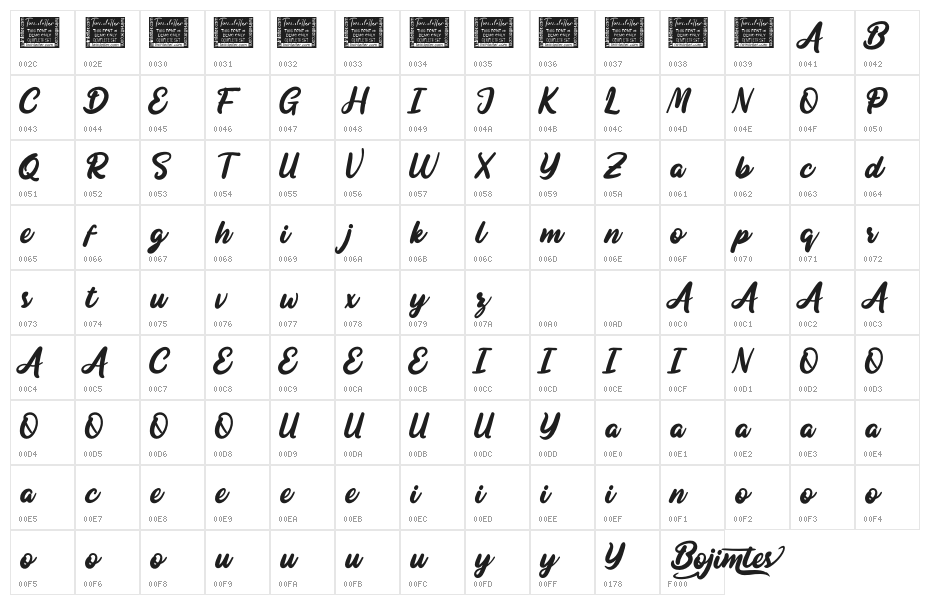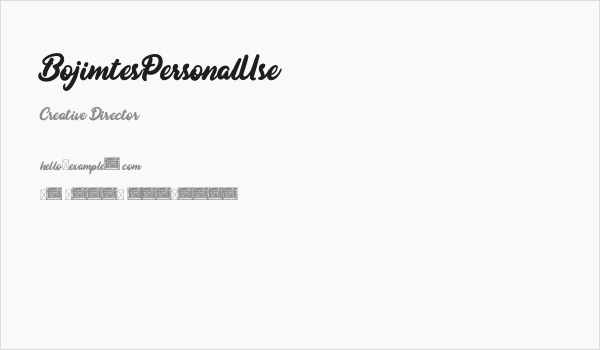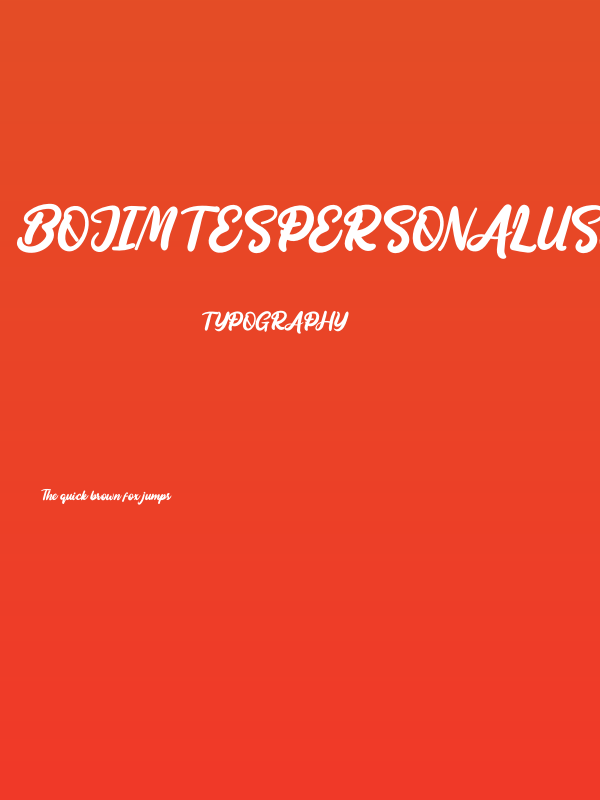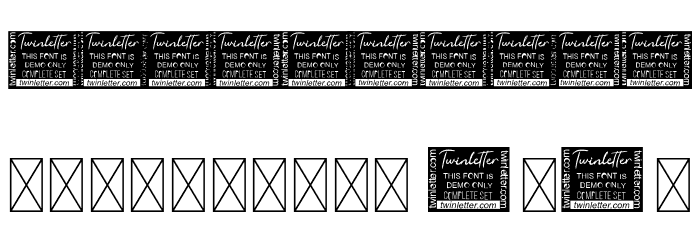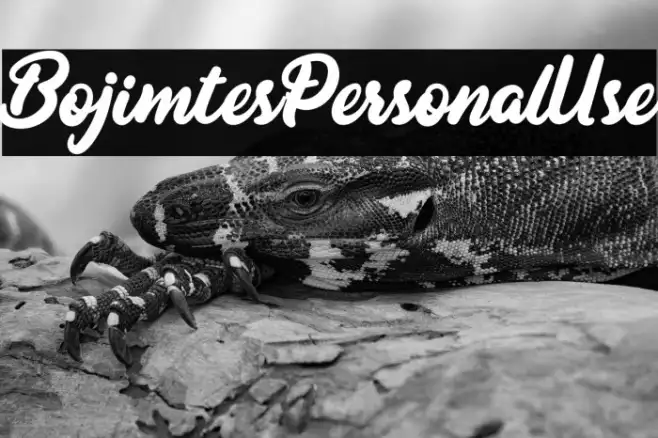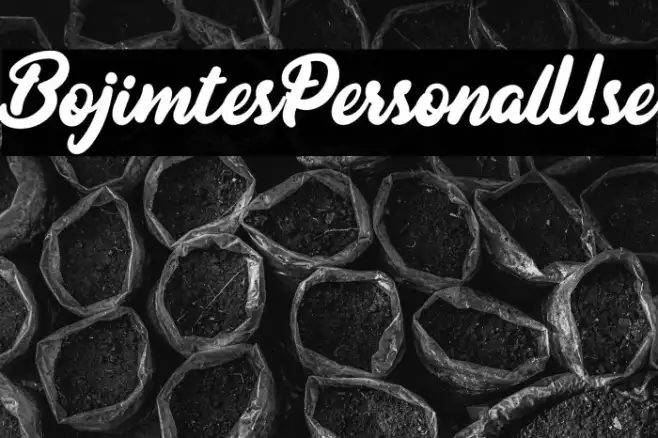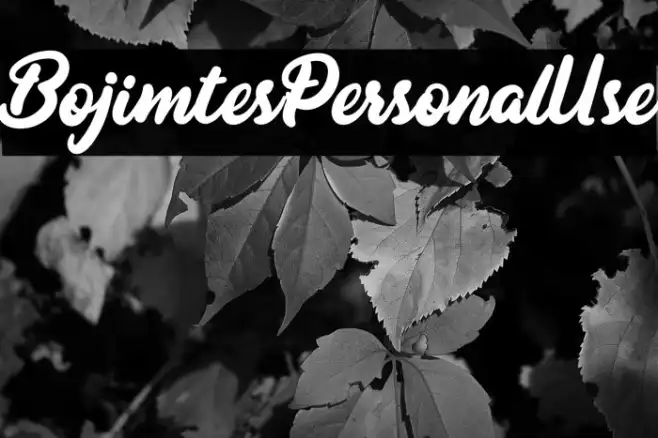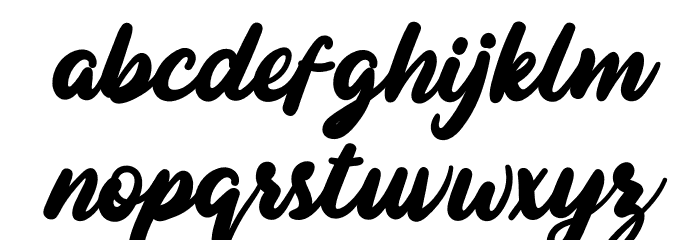
BojimtesPersonalUse Font
BojimtesPersonalUse Description
This font features a bold, cursive style with smooth, flowing lines that give it a dynamic and elegant appearance. The uppercase letters are slightly larger and more pronounced, while the lowercase letters maintain a consistent flow, enhancing readability. The characters are well-spaced, allowing for clear distinction between each letter. The font's design is modern yet retains a classic script feel, making it versatile for various uses. The numerals and special characters are designed to match the overall aesthetic, ensuring a cohesive look across all text elements.